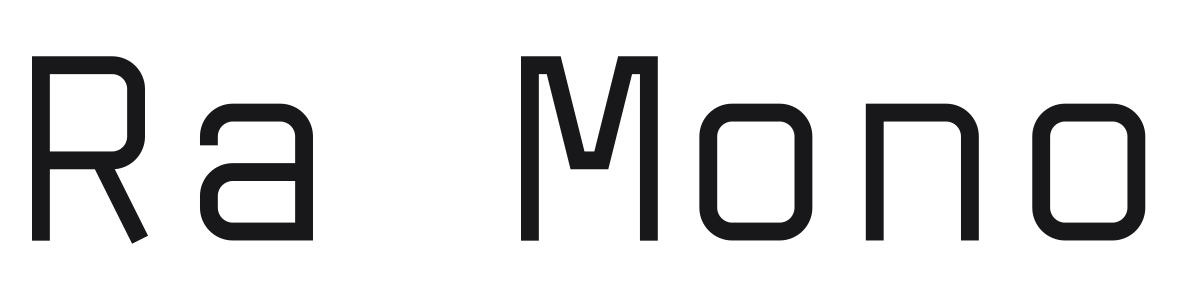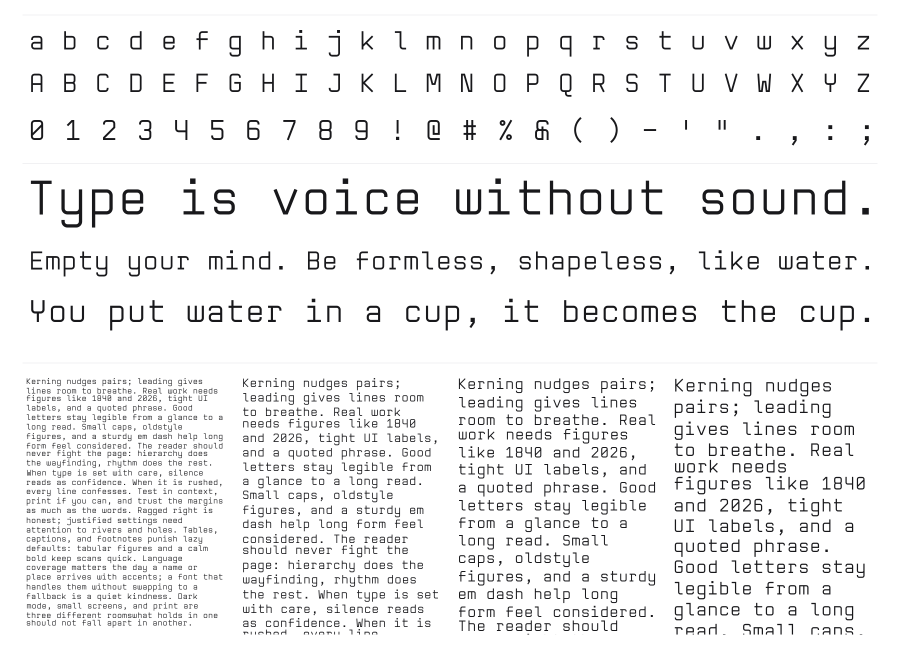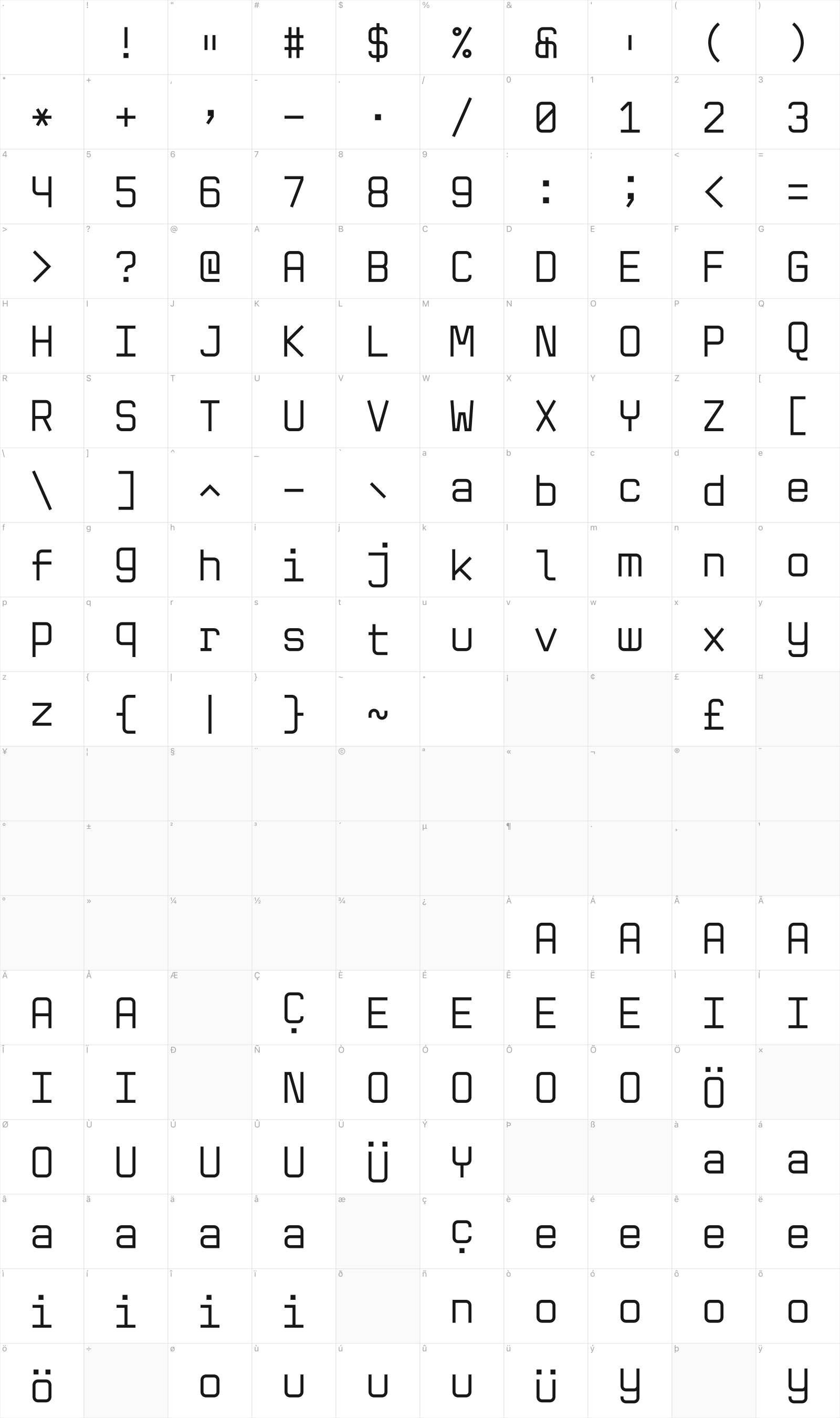
Ra Mono
by Rahman Yerli
Ra Mono is a monospaced geometric sans designed with developers in mind. Subtly rounded terminals soften the otherwise mechanical construction, making it comfortable for extended code reading without losing precision. It sits comfortably in editors, terminals, and anywhere a clean fixed-width face is needed.